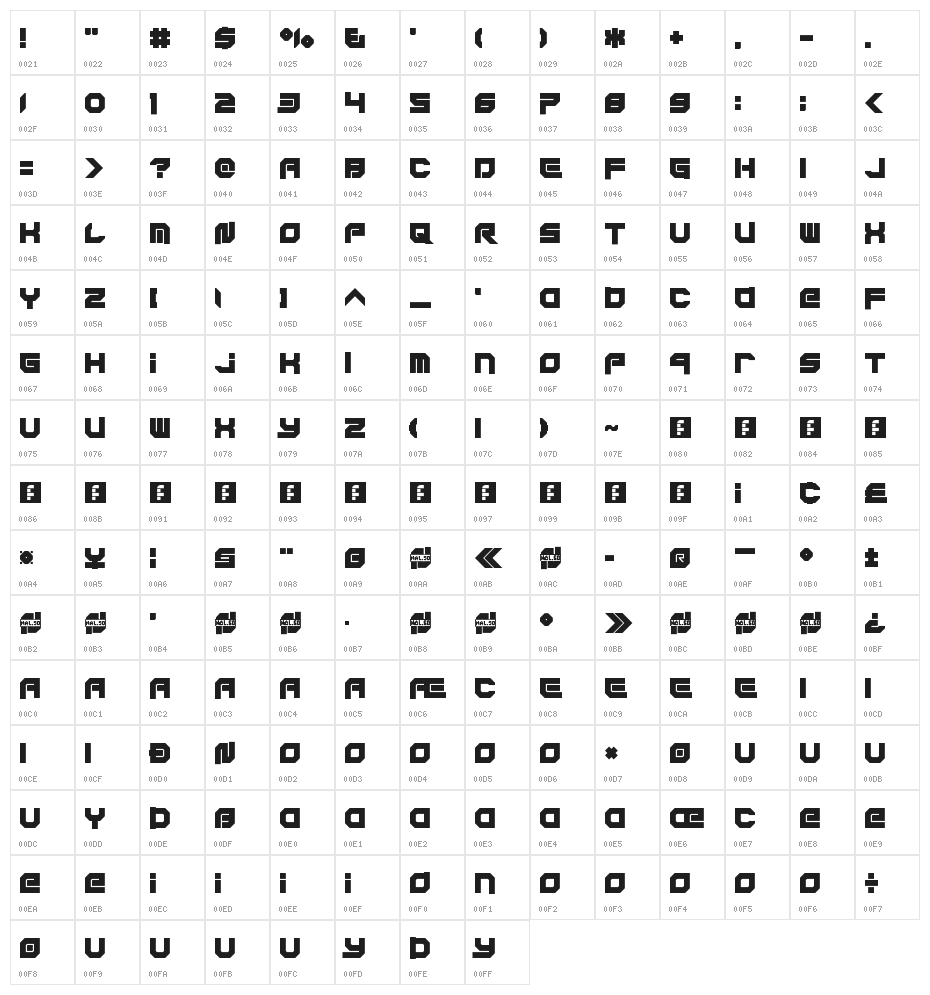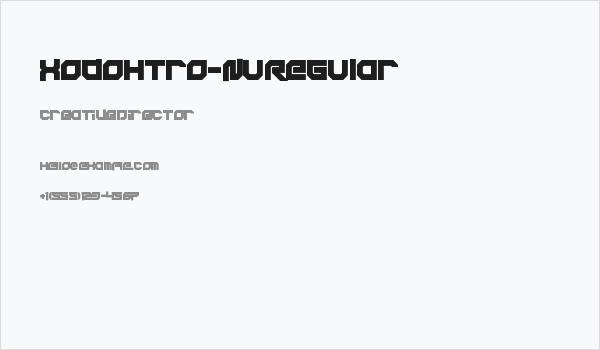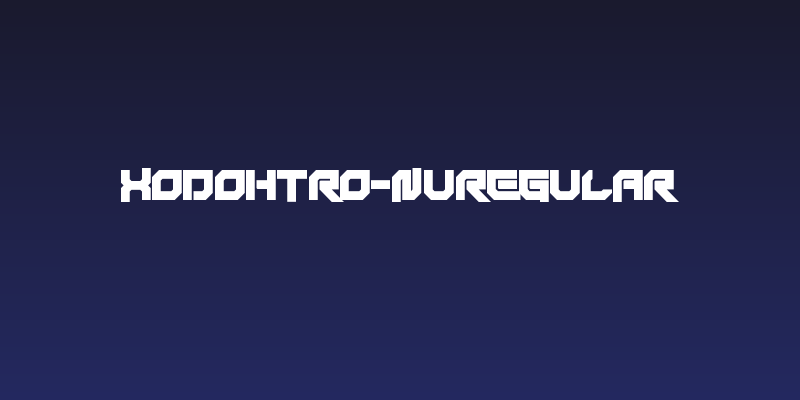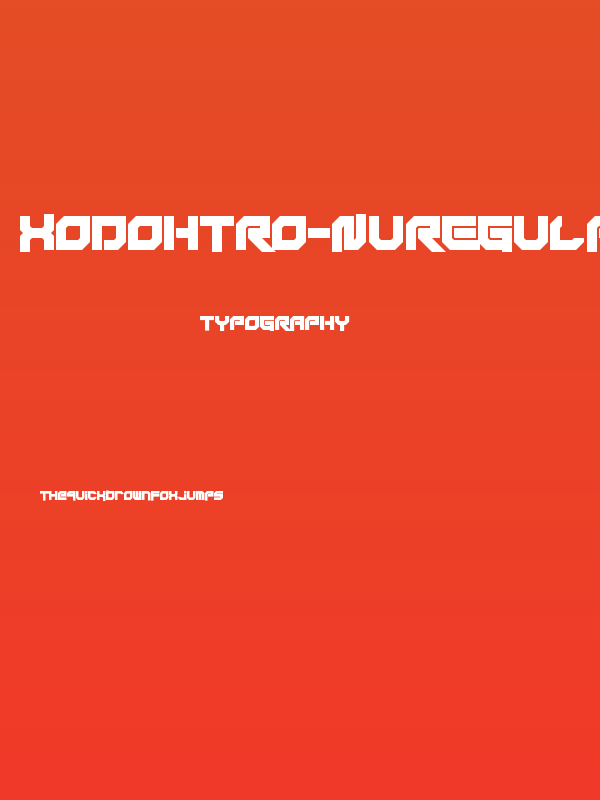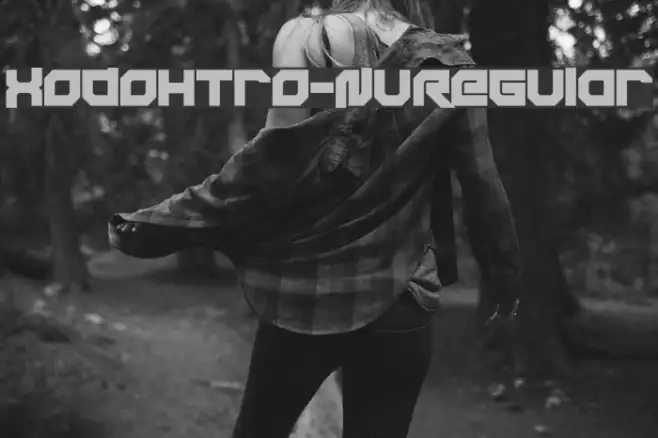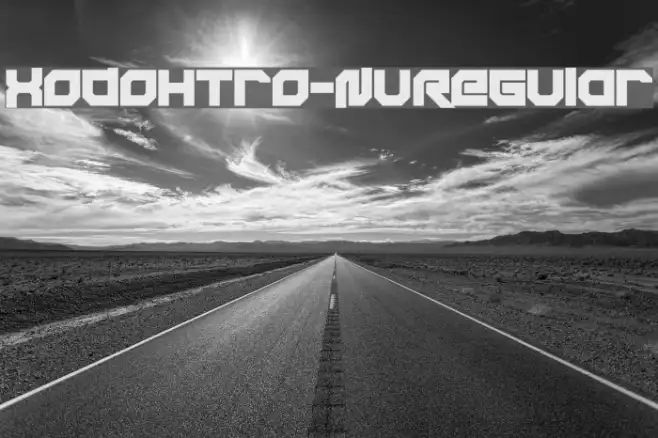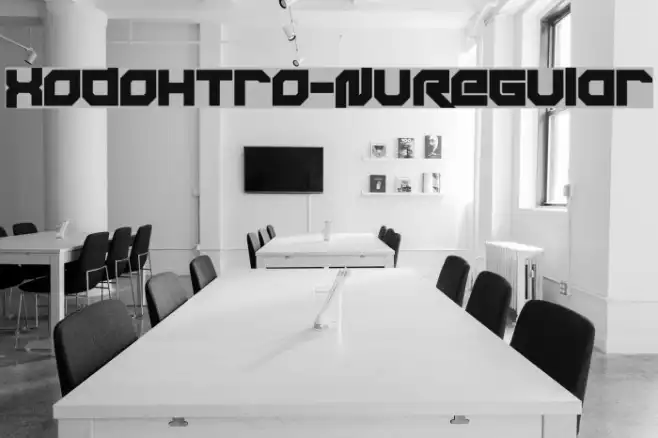
Xodohtro-Nu Regular Font
Xodohtro-Nu Regular Description
This font features a bold, geometric design with a futuristic and industrial feel. The characters are constructed with sharp angles and thick lines, creating a strong visual impact. The uppercase and lowercase letters maintain a consistent style, with unique cuts and edges that give the font a distinctive appearance. The numerals and special characters follow the same design principles, ensuring uniformity across all glyphs. This font is ideal for projects that require a modern and edgy look, such as technology branding, video game titles, or sci-fi themed designs.
| Proposed Projects | Ideal for technology branding, video game titles, and sci-fi themed designs. |